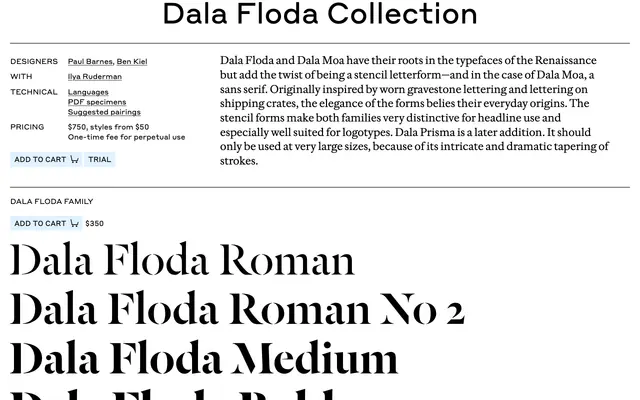
Dala Floda Collection
Commercial Type · Paul Barnes, Ben Kiel
A Renaissance-rooted stencil serif by Paul Barnes and Ben Kiel, with a sans counterpart Dala Moa and an inline Dala Prisma for very large sizes.
A stencil serif by Paul Barnes and Ben Kiel, with Ilya Ruderman, that takes Renaissance letterform structure and applies a stencil cut inspired by worn gravestones and shipping crate lettering. The companion Dala Moa carries the same idea into a sans, and the later Dala Prisma adds dramatic tapering for very large display sizes only. The elegance of the forms belies their everyday vernacular origins, making the family especially well suited to headlines and logotypes.
Commercial Type position Dala Floda as a Renaissance-rooted stencil family, with companion Dala Moa as a sans serif stencil and Dala Prisma as an inline display addition. Inspired by worn gravestone lettering and shipping crate stencils.